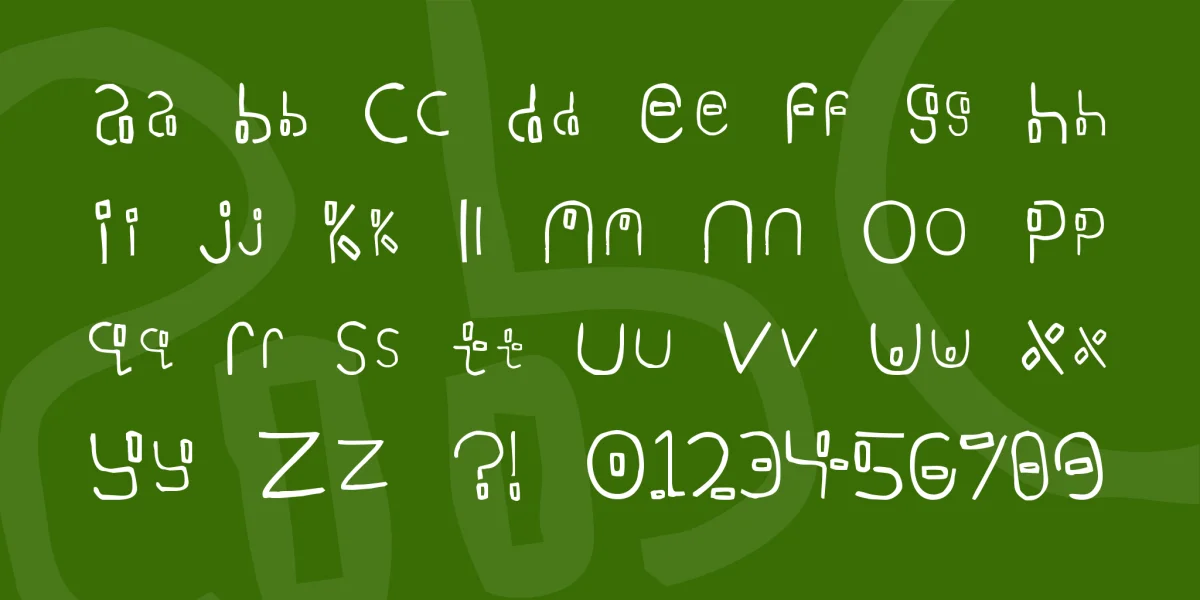
(Caps/Lower [small caps], numbers, most punctuation, some special) is the name of a sort of Club that I made up with my cousins when I was a wee child; here is the font in honor of that now defunct (?) organization. It will work for headlines or body text, though perhaps a little cryptic. (17 November 1997)